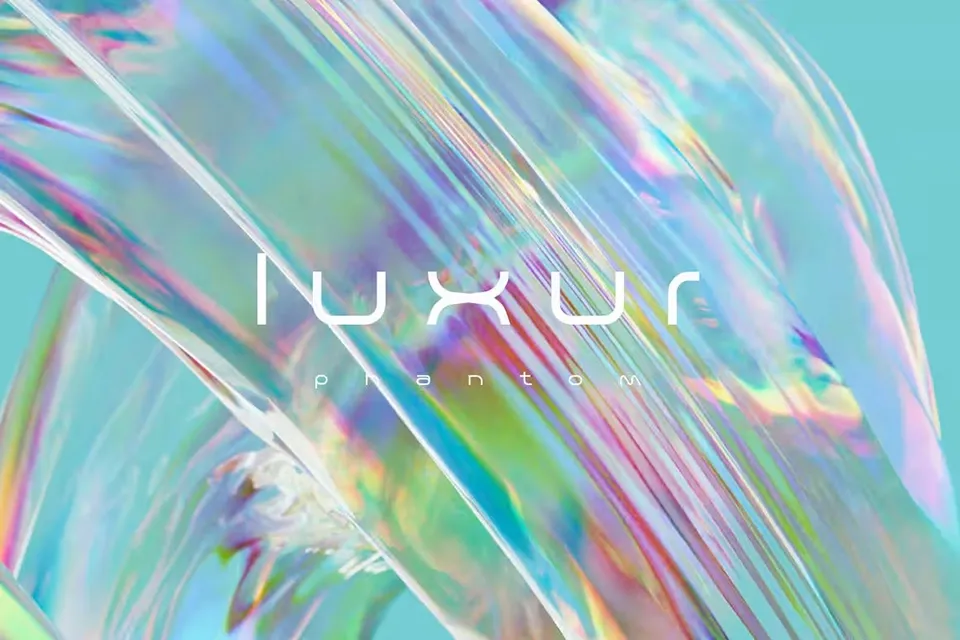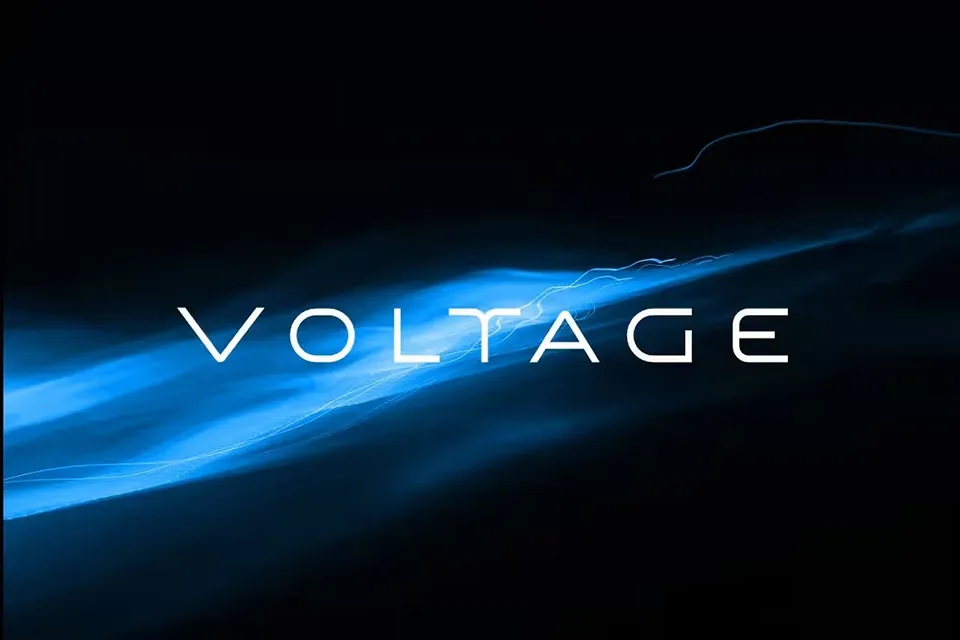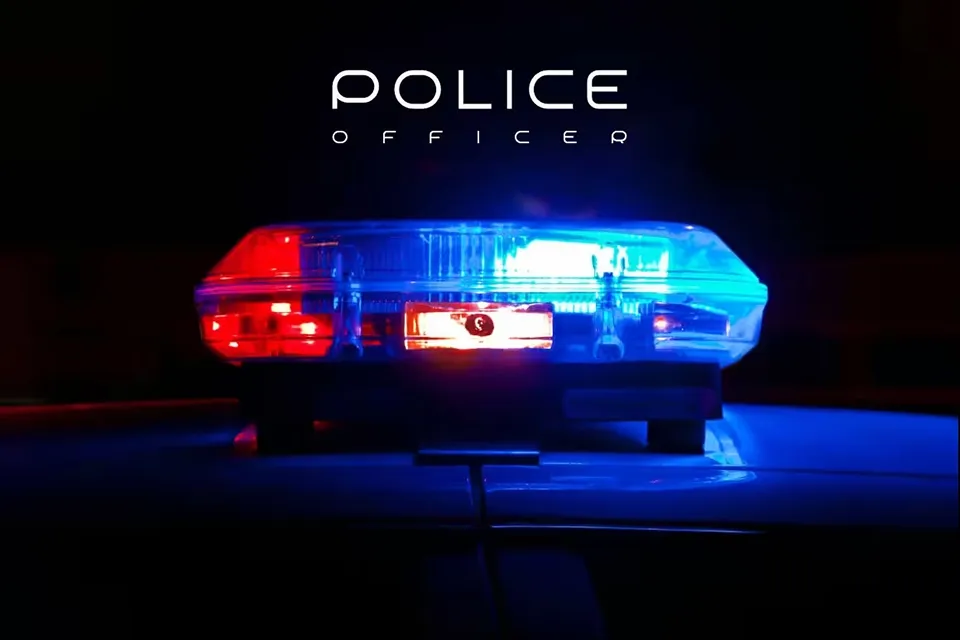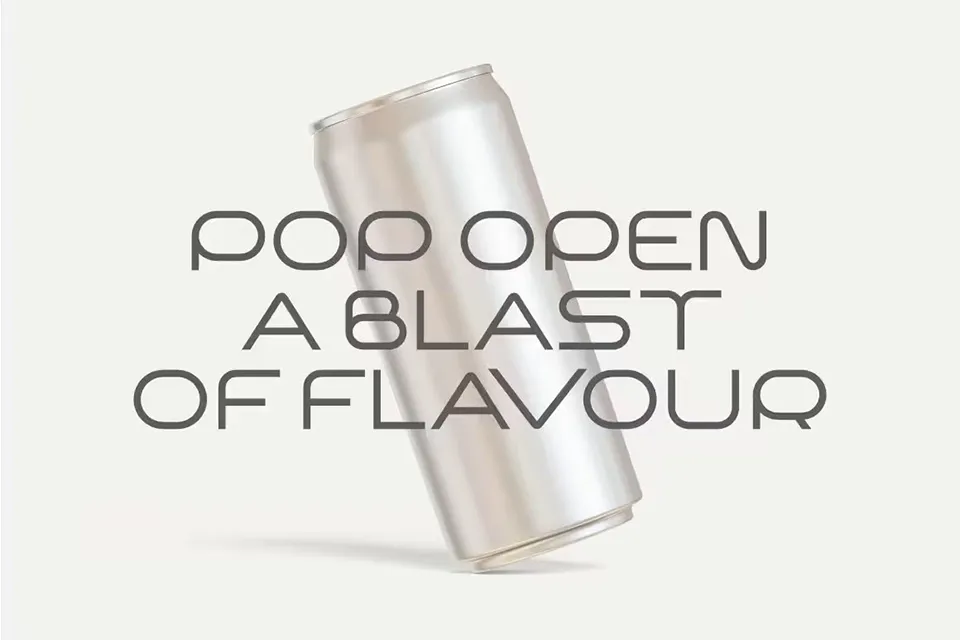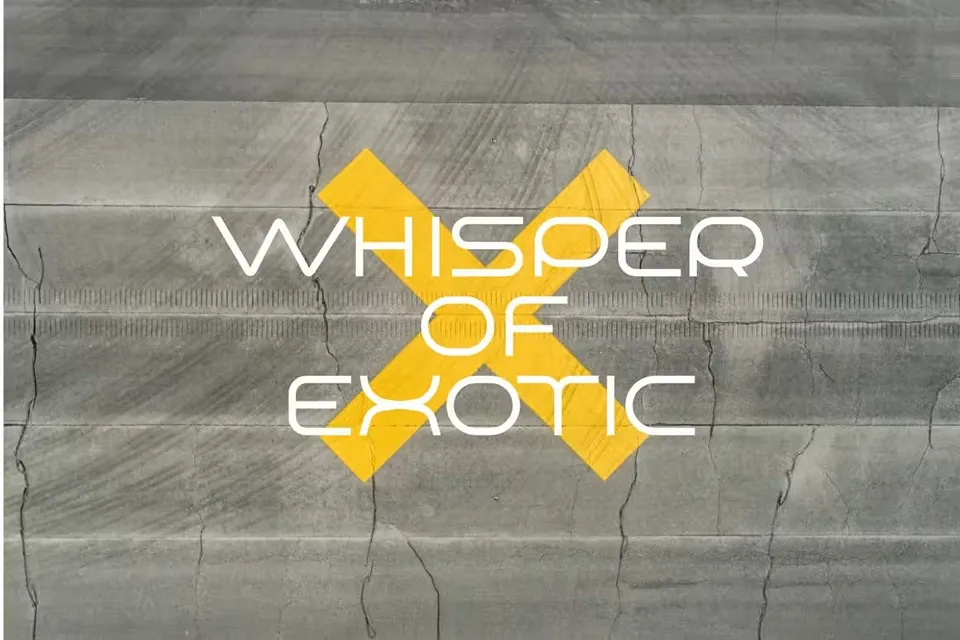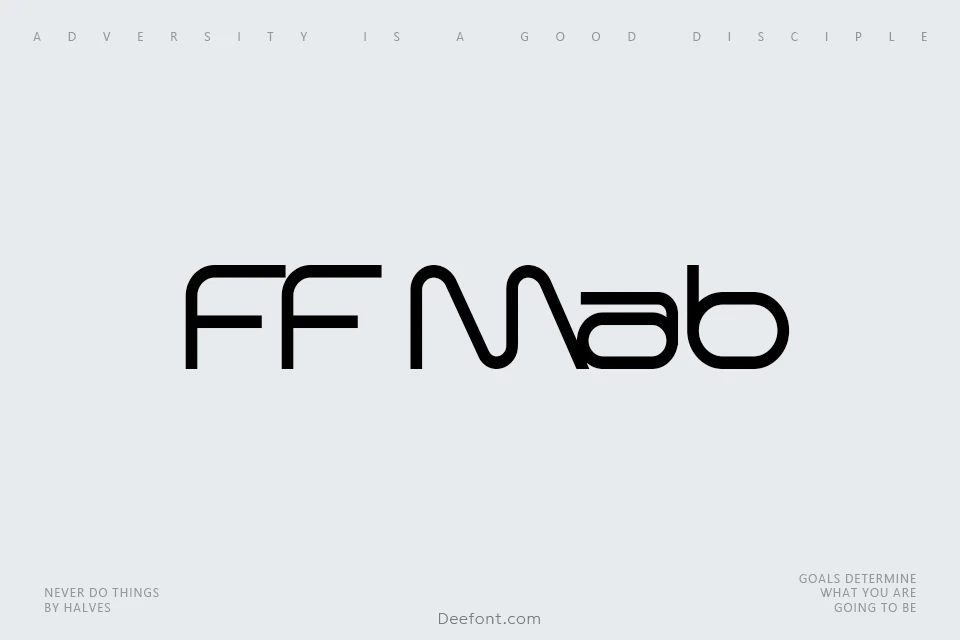
FF Mab Font
FF Mab Font is a modern display sans-serif typeface designed to evoke the energy of the digital age and the thrill of the unknown. With its distinctive, futuristic style, FF Mab Font leaves a lasting impression in a world of fleeting trends, making it ideal for bold branding, digital art, and creative projects that require a unique visual identity.